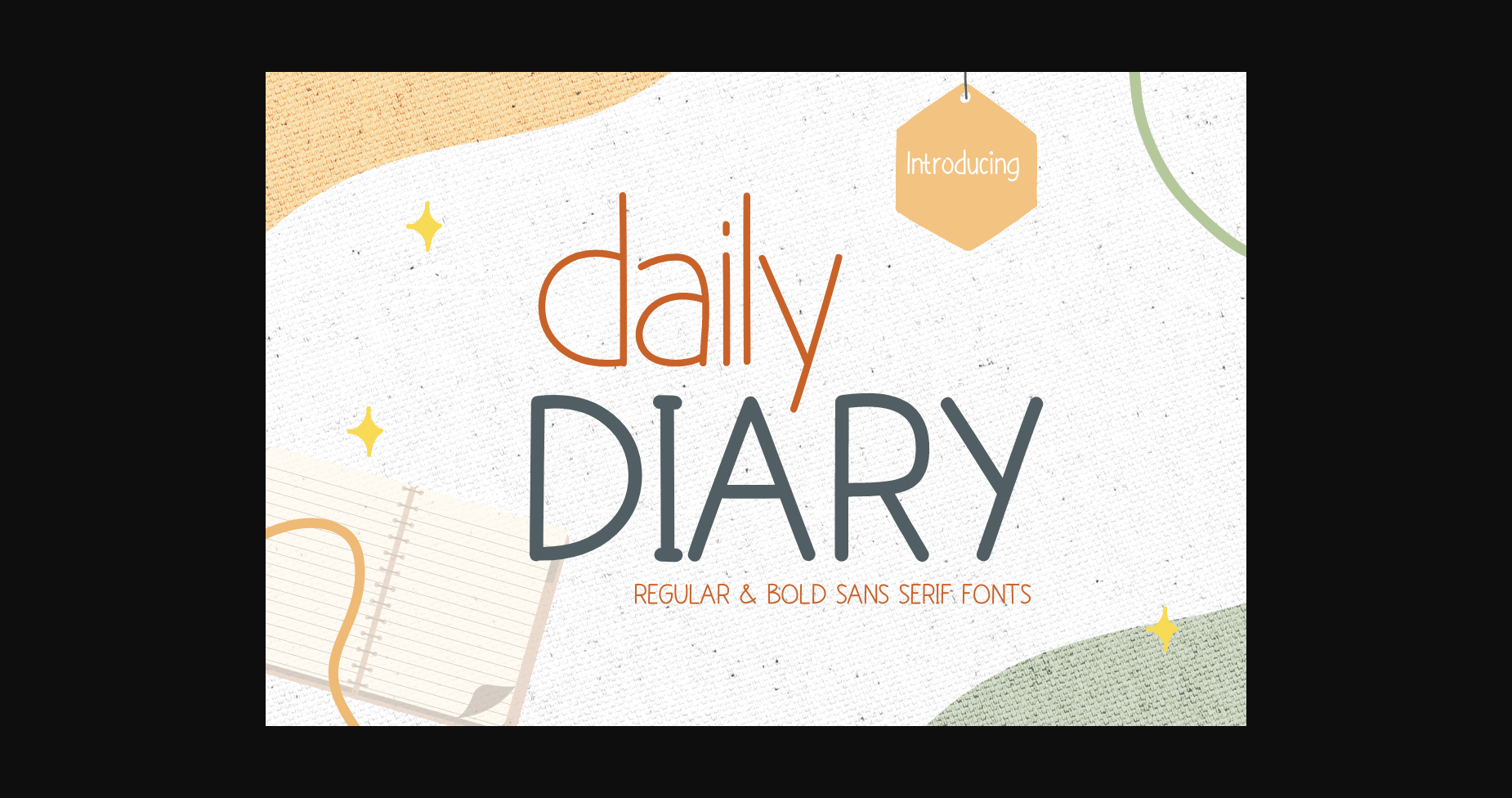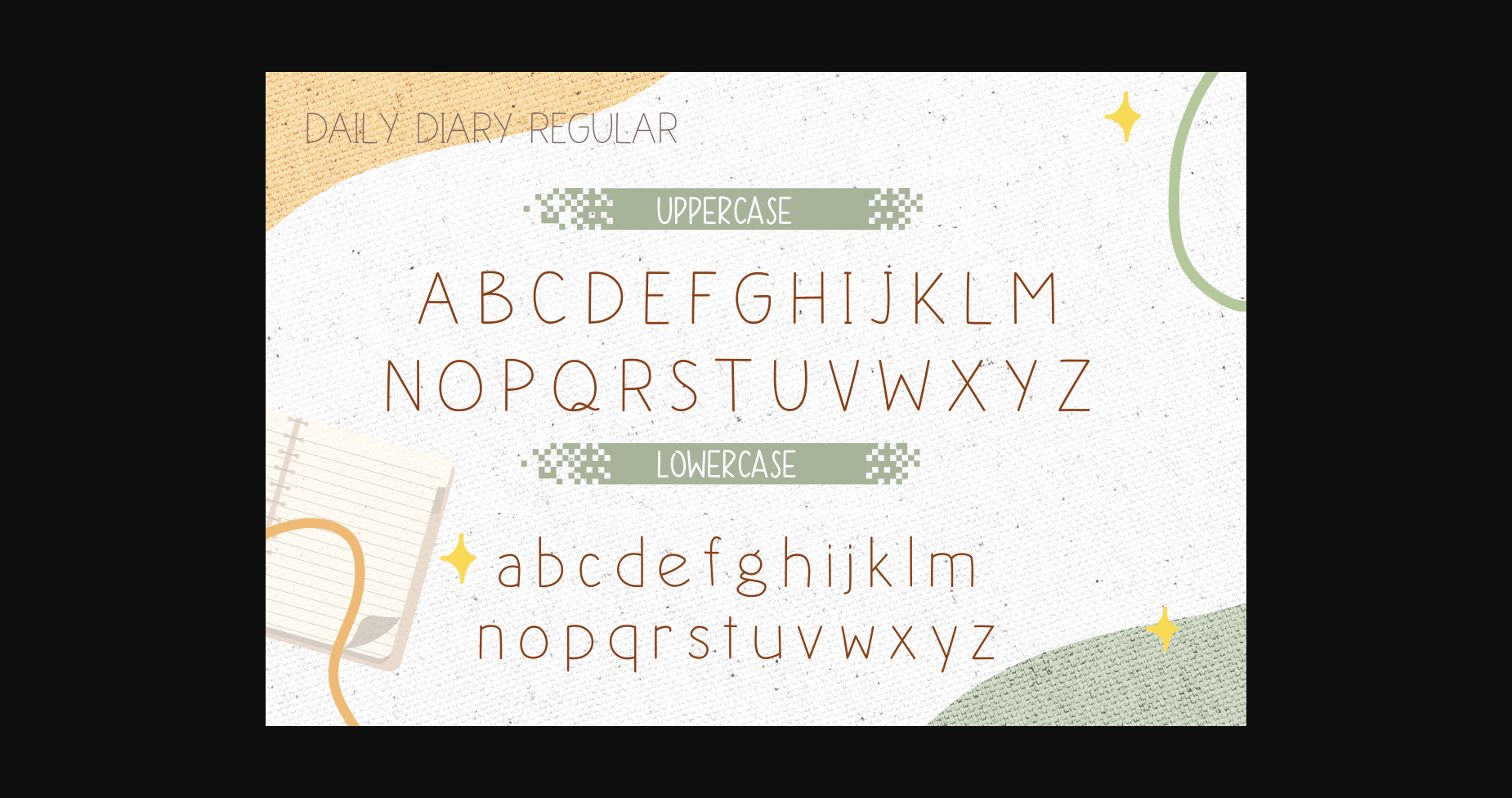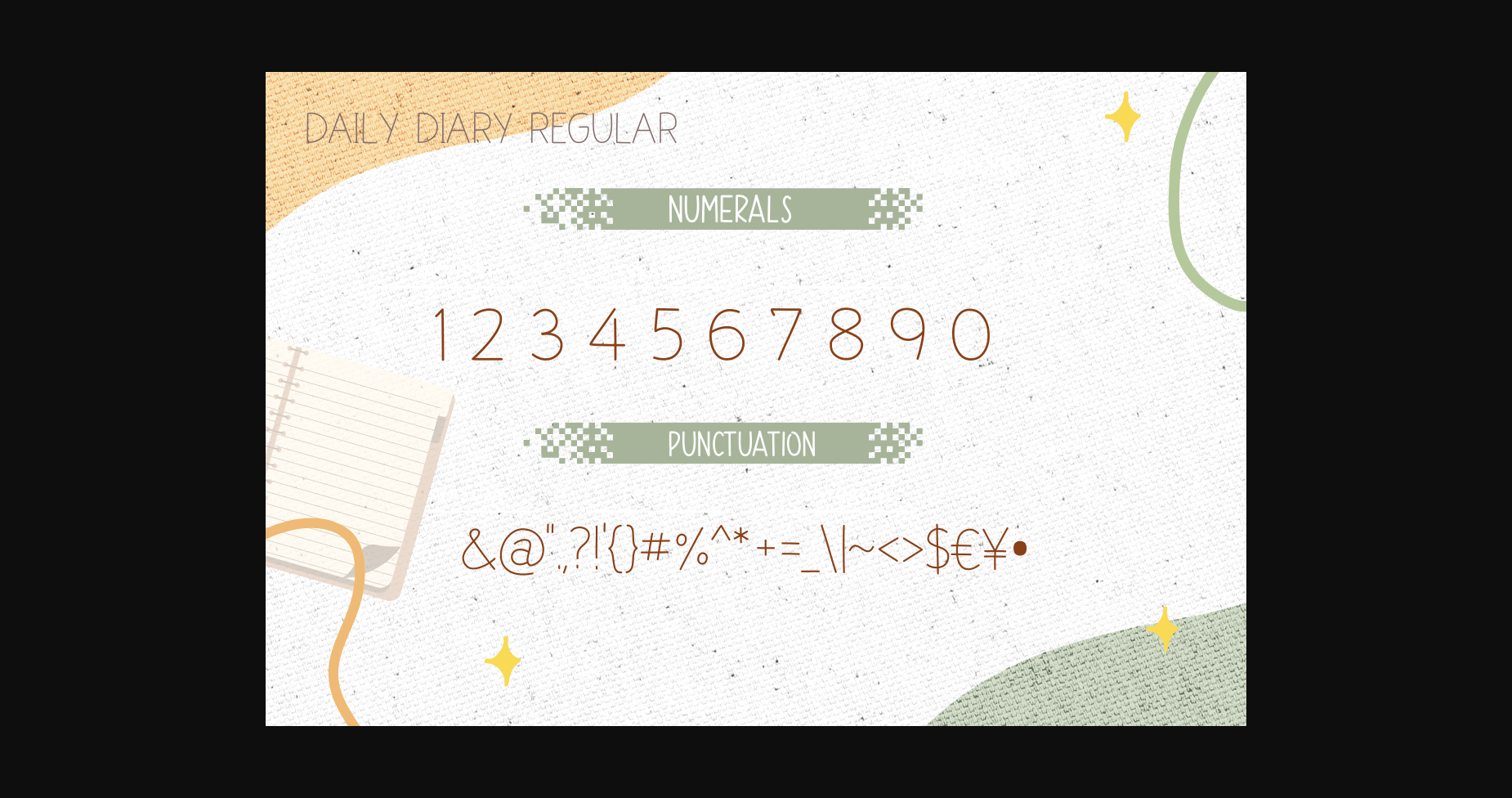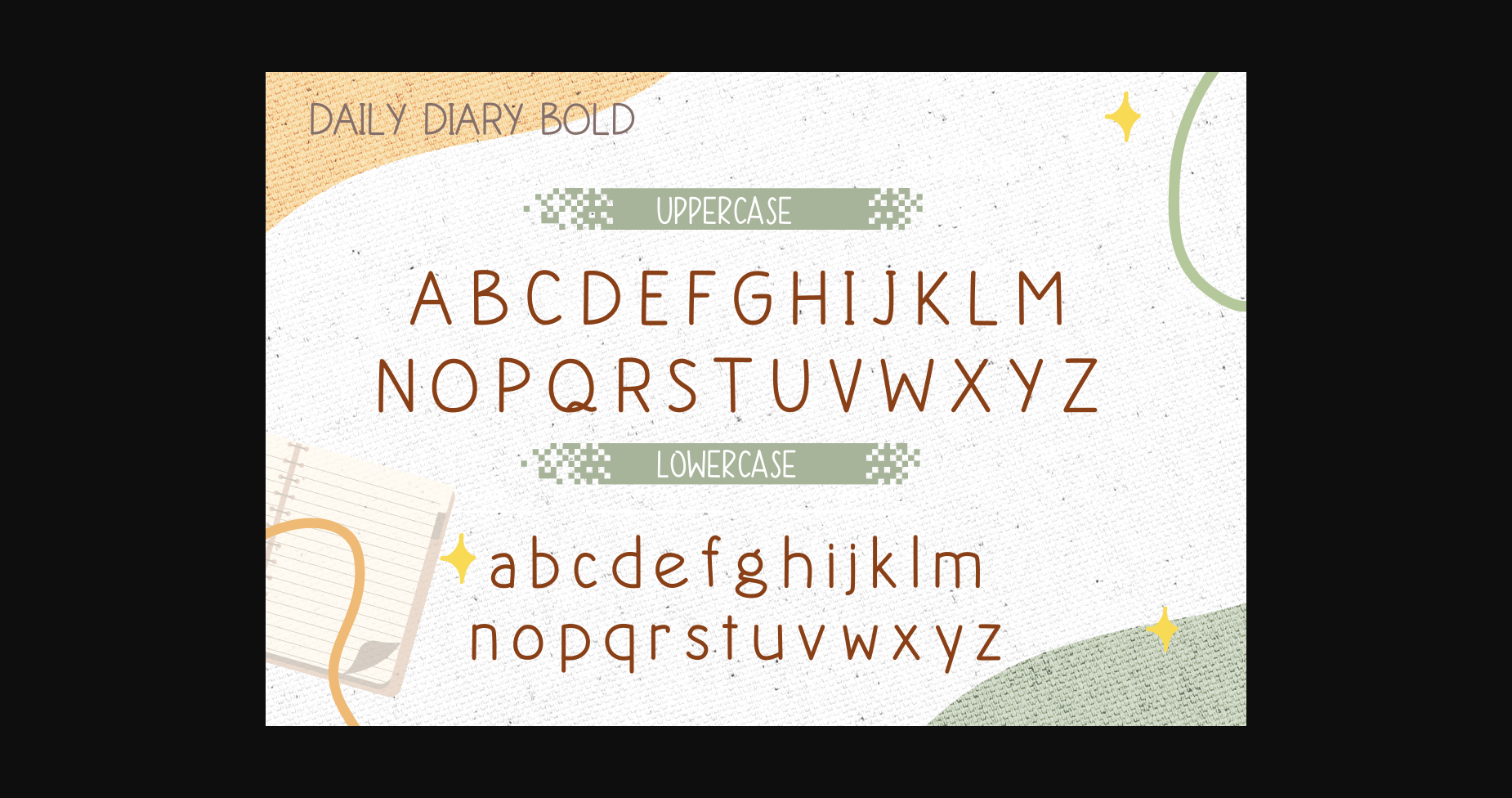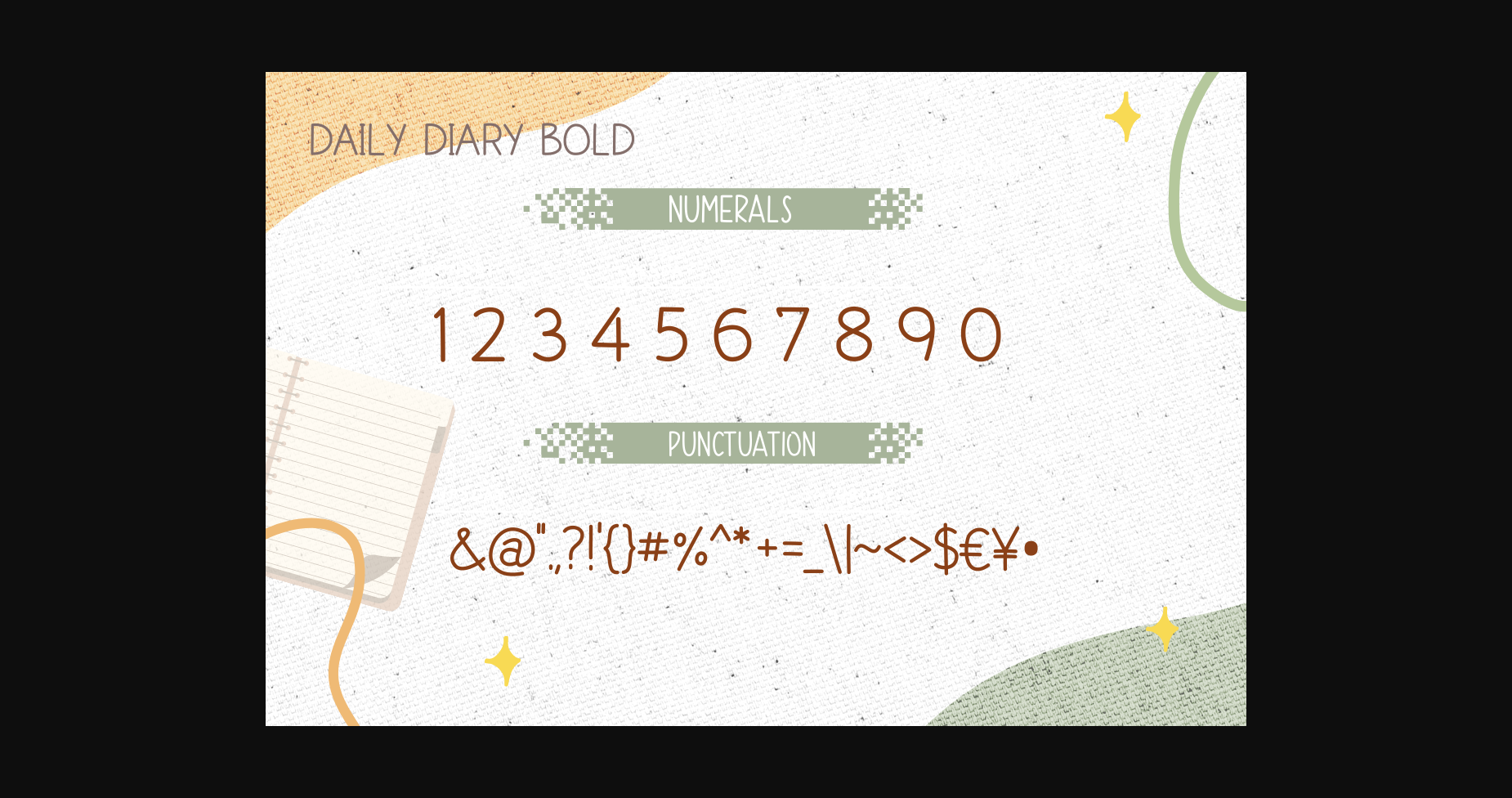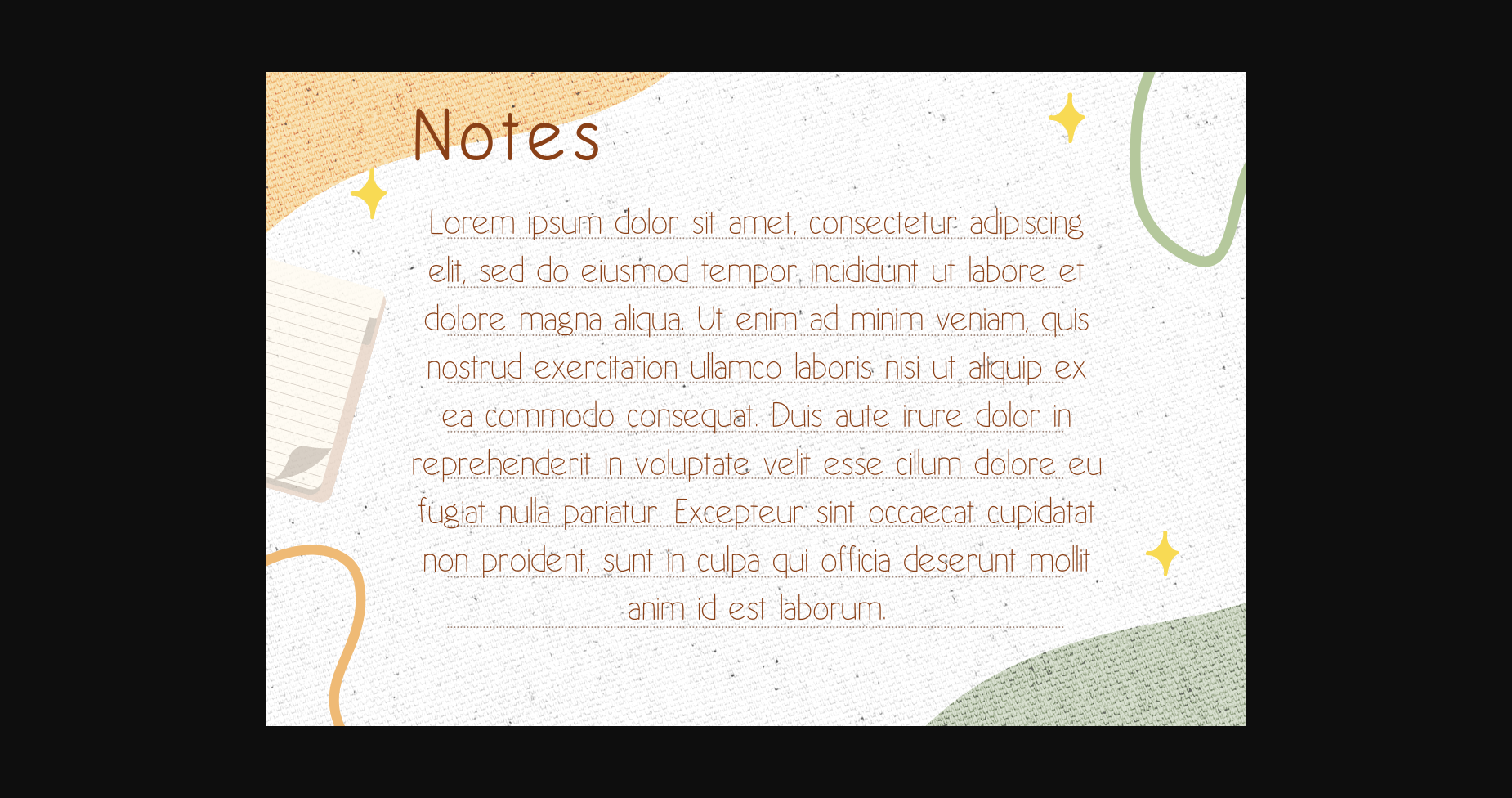
Daily Diary is a cool and slim sans serif font. It is perfect for any branding project such as logos, t-shirt printing, creative products, and more. It will look extraordinary in a variety of contexts.